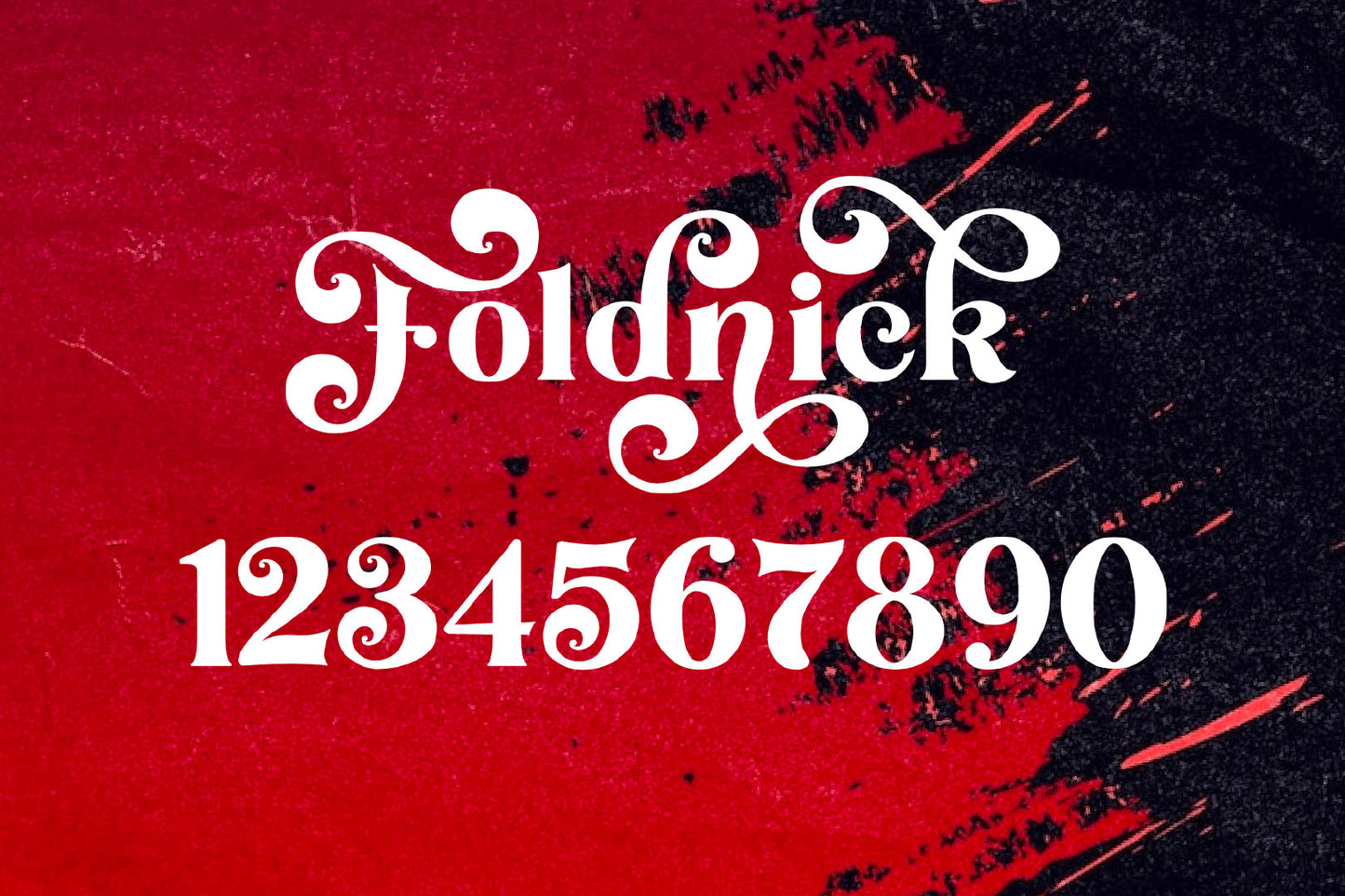
Foldnick - Free Tattoo Font with Great Numbers
How about this beautiful tattoo font with cool numbers? Foldnick is the goto tattoo font with swirls and swashes. The numbers are nice and big, perfect for making your tattoo stand out.